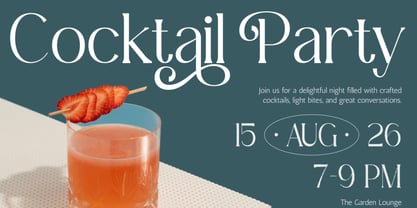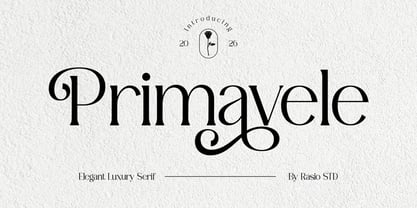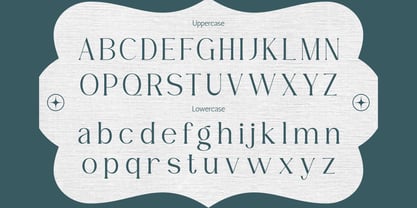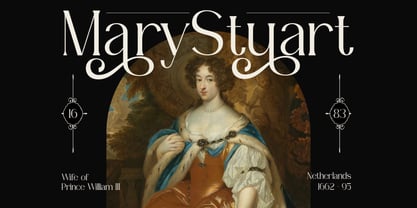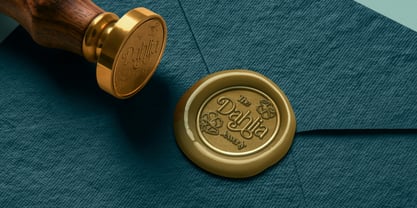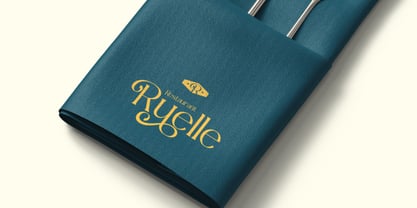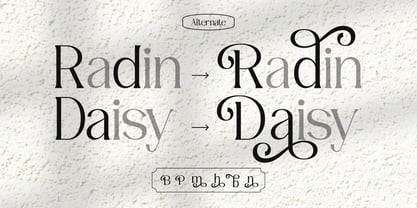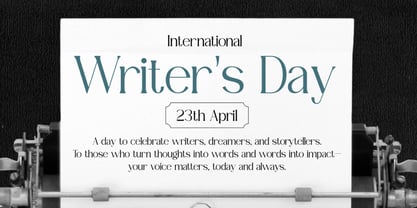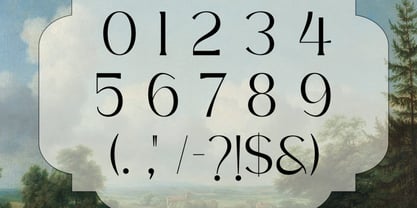
Primavele
by Vadova Std
Primavele presents an elegant luxury serif typeface with refined contrast and graceful curves. The design features delicate stroke transitions, stylish ligatures, and a high-end editorial aesthetic that enhances readability while maintaining a sophisticated tone. Includes uppercase, lowercase, numerals, punctuation. Primavele is crafted for high-end visual communication where elegance and clarity are essential. It works seamlessly across branding, editorial layouts, and digital design, making it highly relevant for fashion labels, luxury products, publishing, and premium marketing materials. Its refined structure allows it to perform beautifully in both large headlines and supporting text, ensuring versatility across creative projects.